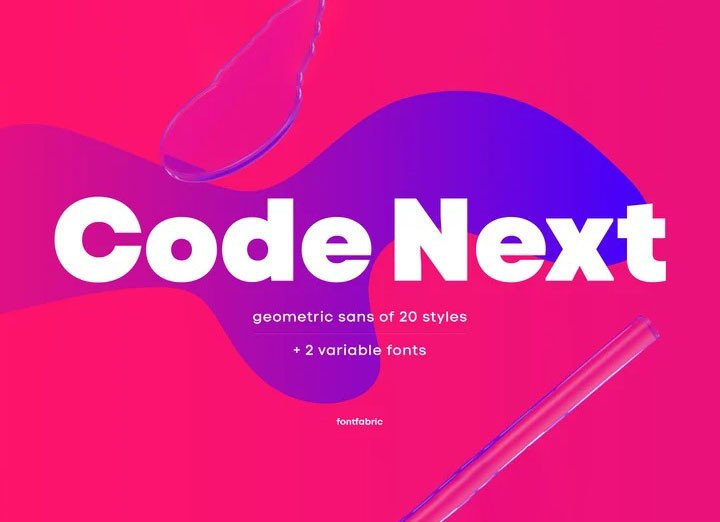
Code Next Font
Code Next Sans Serif Font is a sans-serif font designed by Fontfabric. The family has 22 weights — 11 uprights and 11 italics — ranging from Hairline to Black. These fit any modern design in print, web, and display visualization. Developed to go above and beyond, Code Next comes prepared for multi-script projects with Extended Latin, Extended Cyrillic, and Greek.
Explore Code Next’s versatility and switch things up with the help of 2 variable fonts, more than 1280 glyphs, and an extensive OpenType features set including small caps, standard and discretionary ligatures, contextual and stylistic alternates, stylistic sets, case sensitive forms, and much more.